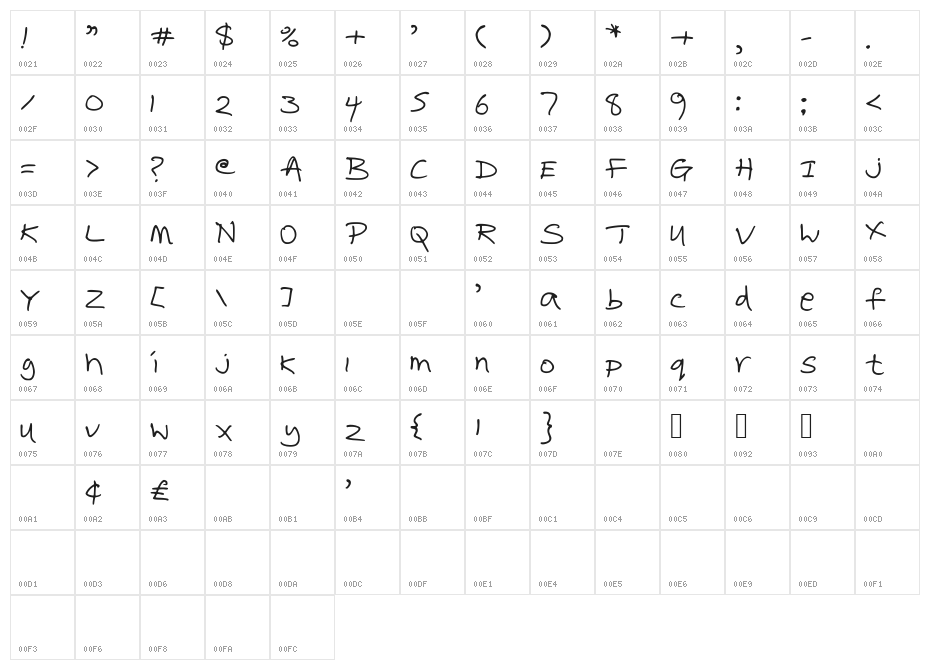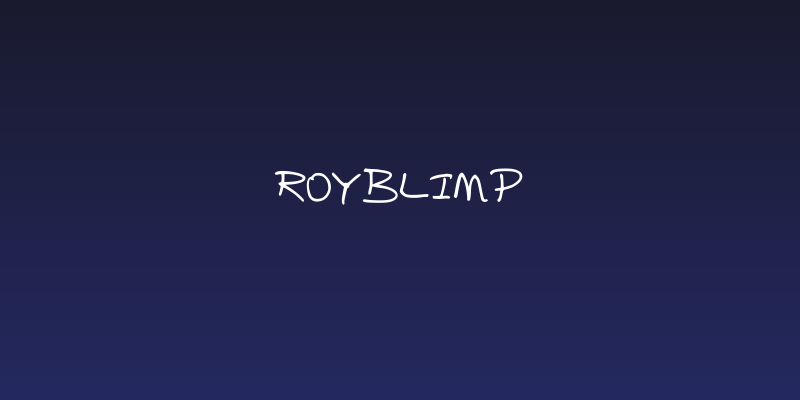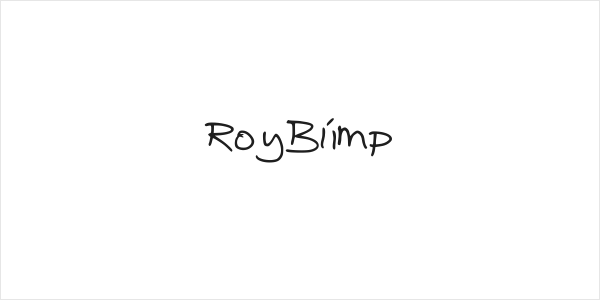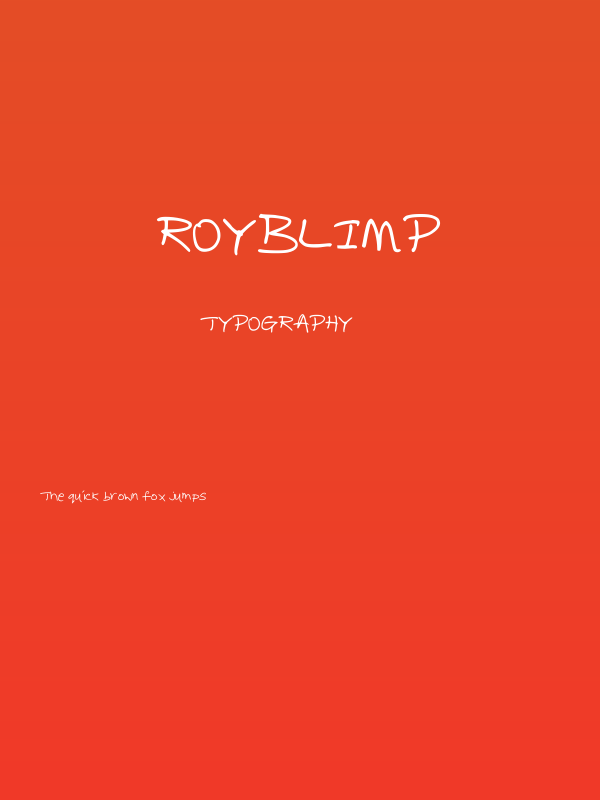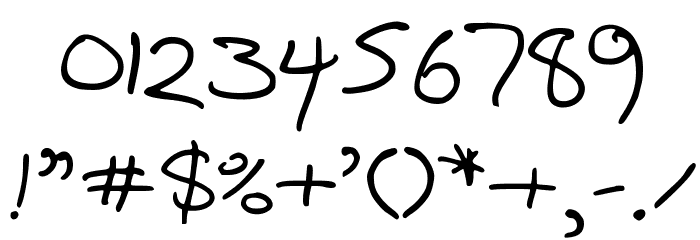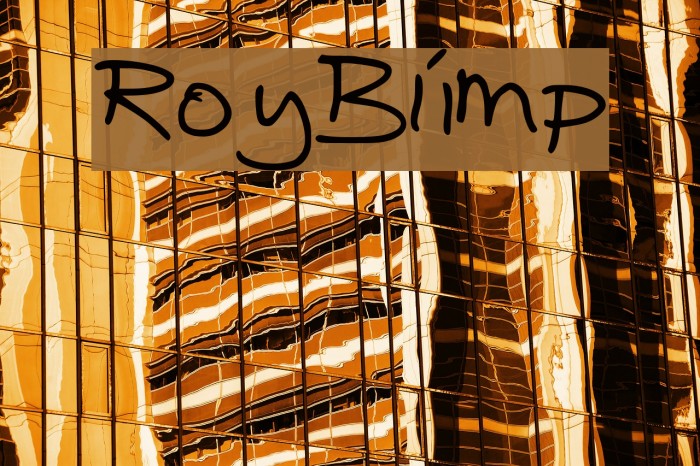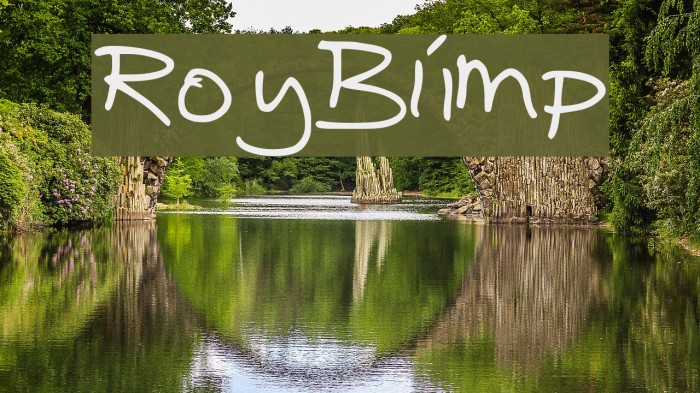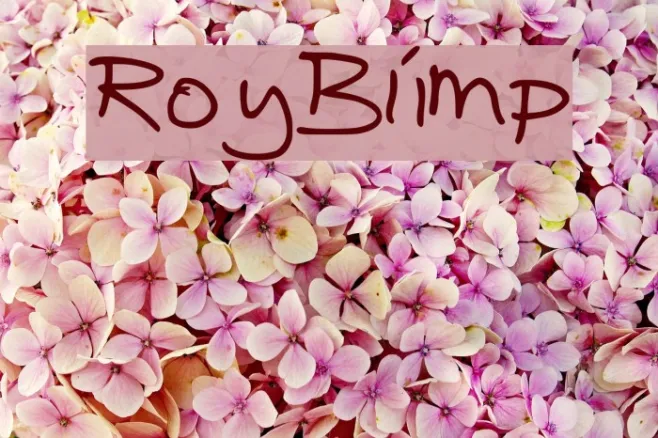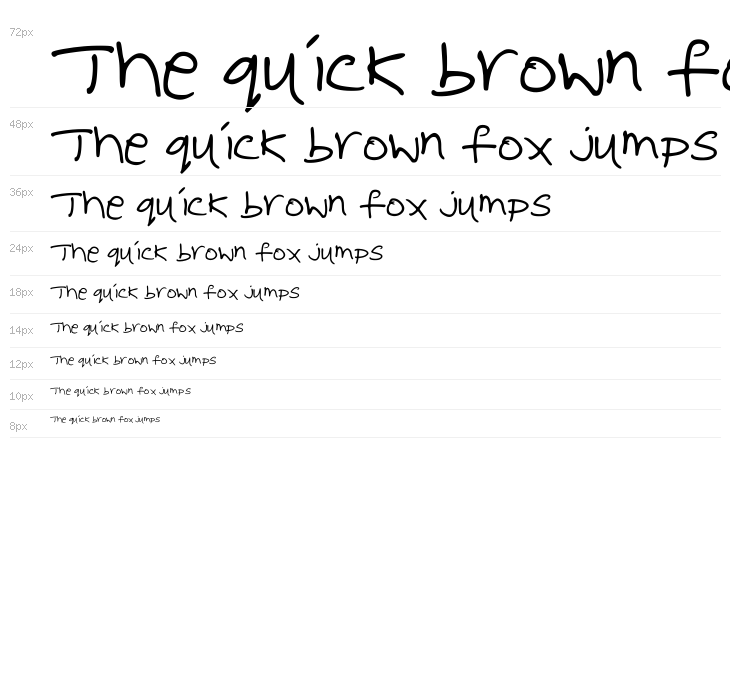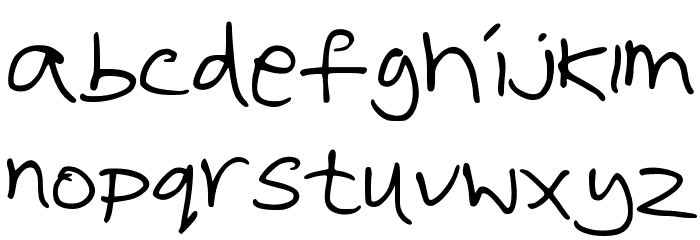
RoyBlimp Font
RoyBlimp Description
This font exudes a playful and casual handwritten style, characterized by its irregular strokes and slightly tilted characters. The letters are crafted with a natural flow, mimicking the spontaneity of handwriting. The uppercase and lowercase letters maintain a consistent style, with rounded edges and varying stroke widths that add to its informal charm. Numbers and special characters are designed to match the overall aesthetic, making them cohesive with the alphabet. This font's unique personality is perfect for projects that require a personal touch, such as greeting cards, invitations, or creative branding.
| Use Case | Headlines, Creative projects, Personal notes |
| Proposed Projects | Ideal for greeting cards, invitations, creative branding, and personal projects. |